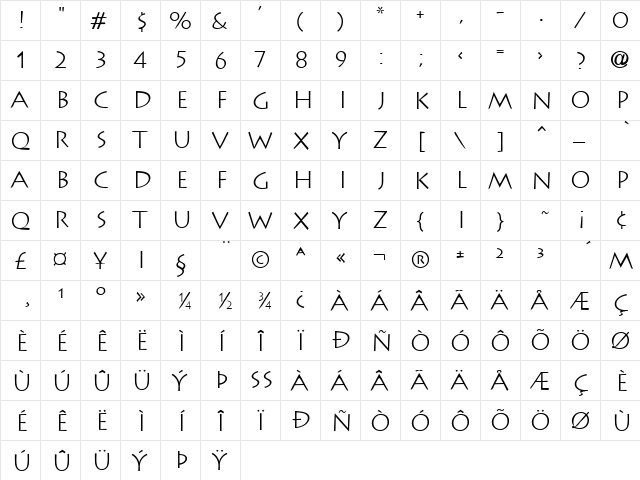
LithographLight Regular
Design Context for LithographLight Typeface
LithographLight offers clean, dependable letterforms without strong stylistic allegiance, making it a practical choice for designers who need flexibility. Its slender proportions lend an understated elegance to any composition.